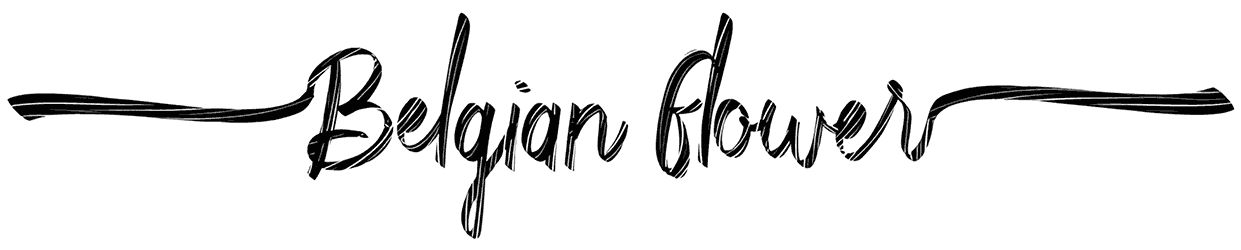
Belgian Flower Font
For sharing a sense of personalization, naturalism, softness, and dynamism, you can opt for a script font such as Belgian Flower in designing posters, billboards, packaging, greeting cards, and invitations. This brush typeface can unbelievably elevate the quality of your artwork, so there is no need to worry about the lack of numbers and punctuation.